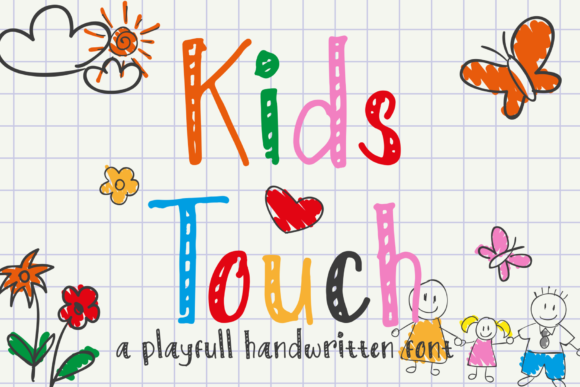
Introducing the Kids Touch Font, a delightful and charming display font designed to ignite your creativity and bring joy to your designs. Created by the talented sipanji figuree, this font is perfect for anyone looking to add a touch of whimsy and playfulness to their projects.
Imagine the possibilities with Kids Touch. This font is like a burst of sunshine on a cloudy day, injecting life into your chalkboard quotes and teaching materials. Its authentic and genuine appearance will transport your audience to a world of imagination and creativity.
With Kids Touch, every design becomes a work of art. Let the letters dance across your canvas, creating a symphony of colors and shapes that captivate your viewers. Watch as your words come alive, evoking emotions of happiness, nostalgia, and pure delight.
Whether you're creating invitations for a children's party, designing a logo for a daycare center, or crafting educational materials for young learners, Kids Touch is your ultimate companion. Its versatility allows it to adapt effortlessly to any project, elevating your designs to new heights.
But Kids Touch is more than just a font. It's a portal to a world of endless possibilities. It's the key that unlocks the door to your imagination, offering you the chance to create something truly magical. Let your creativity soar as you explore the boundless potential of this font.
Don't settle for ordinary when you can have extraordinary. Kids Touch is here to revolutionize your design journey, adding a touch of whimsy and charm that will set you apart from the rest. Step into a world of imagination and watch your ideas come to life with this enchanting font.